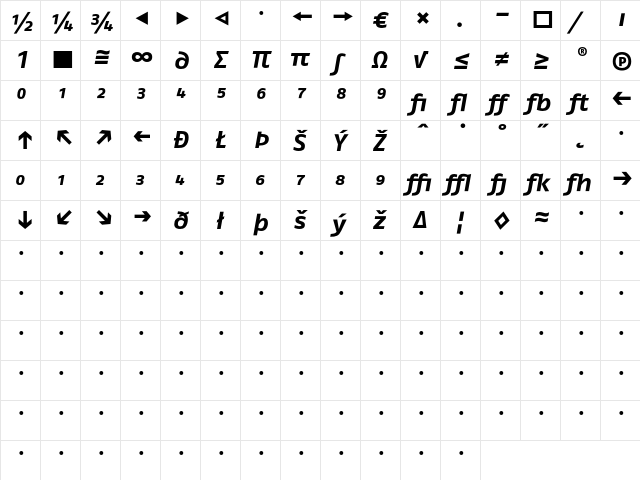
FagoEx BoldItalicExp
Design Context for FagoEx Typeface
FagoEx offers clean, dependable letterforms without strong stylistic allegiance, making it a practical choice for designers who need flexibility. Its italic angle brings a sense of urgency and motion to the letterforms. The heavy weight commands attention and anchors typographic hierarchies.
Pro Tip: Use FagoEx for emphasis, pull quotes, and subheadings where its slanted energy can add rhythm to the layout.